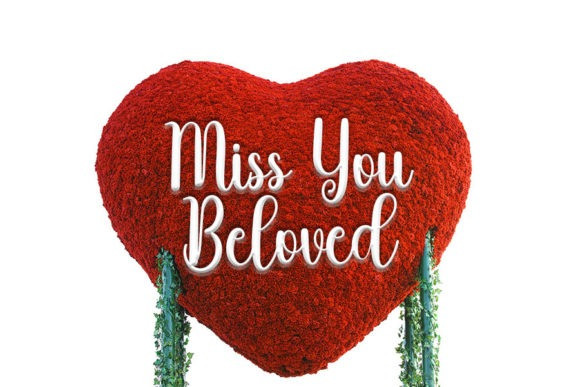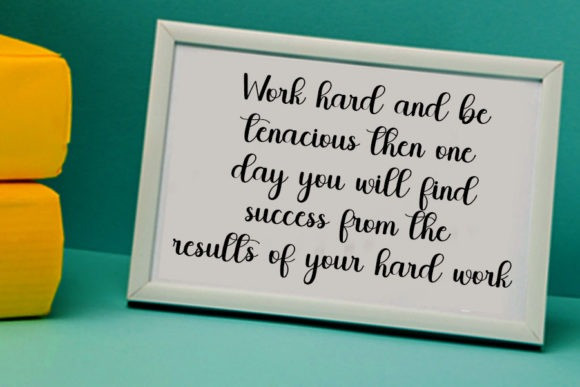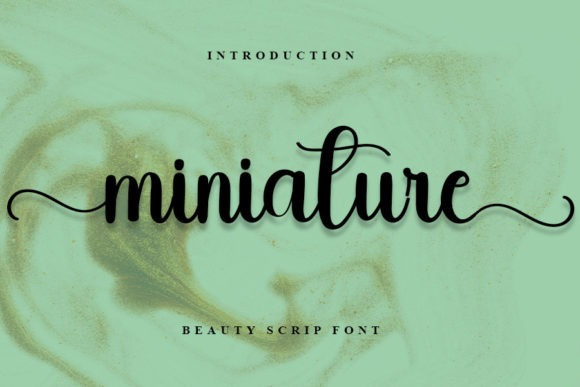
Miniature Script Font
Miniature Script Font is a stylish handwritten font with a contemporary atmosphere and impeccable form, inspired by a timeless classic calligraphy. This font is PUA encoded which means you can access all of the glyphs and swashes with ease!